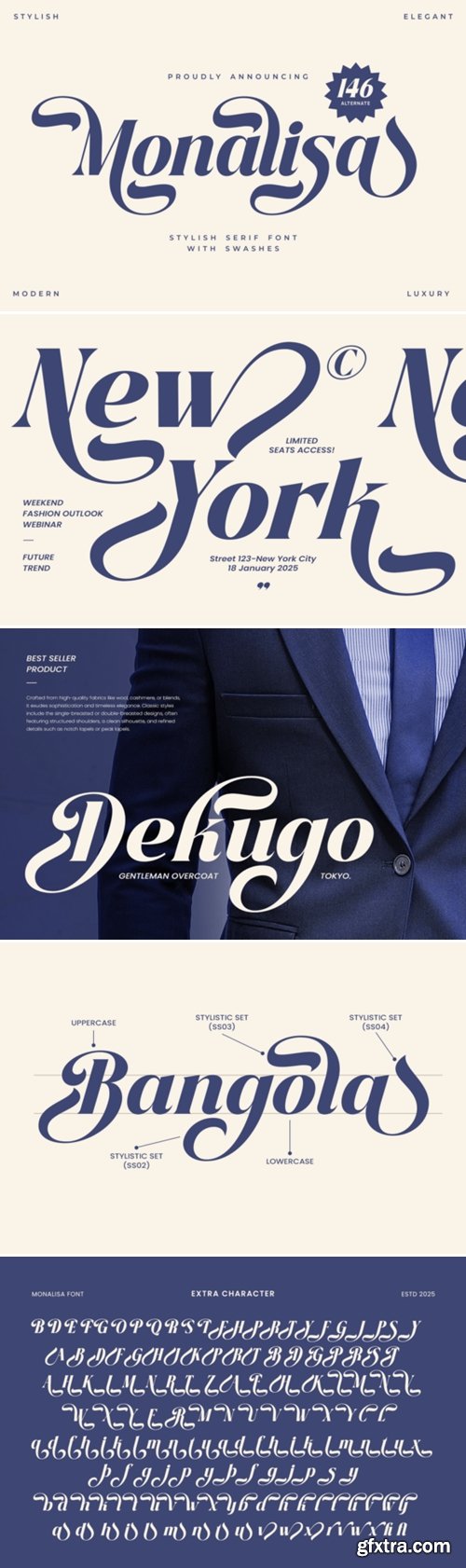
Monalisa Font
Monalisa is an elegant serif font that exudes timeless sophistication and charm. The highlight of this font lies in its exquisite swashes that resemble the delicate wings of a butterfly, lending a whimsical and enchanting feel to every design. Its refined curves and intricate details make it a standout choice for anyone seeking a font that combines beauty and grace.